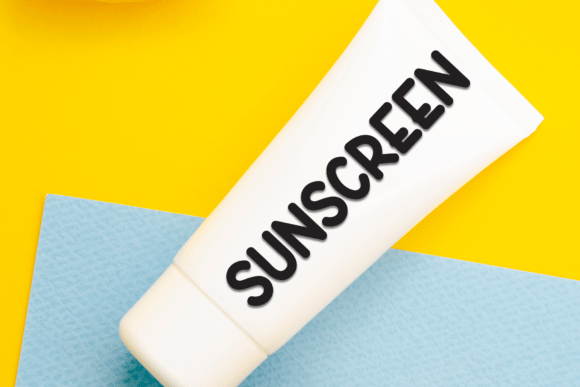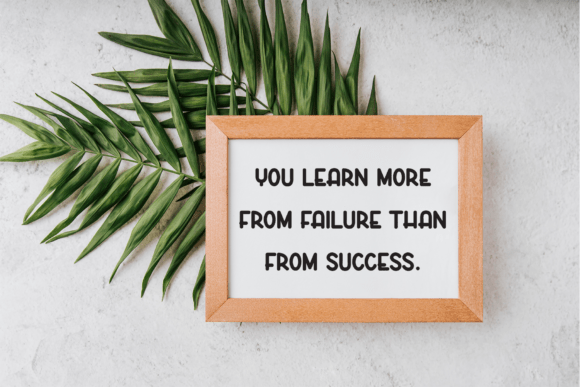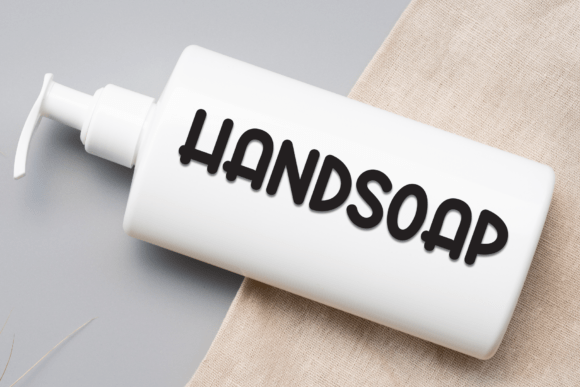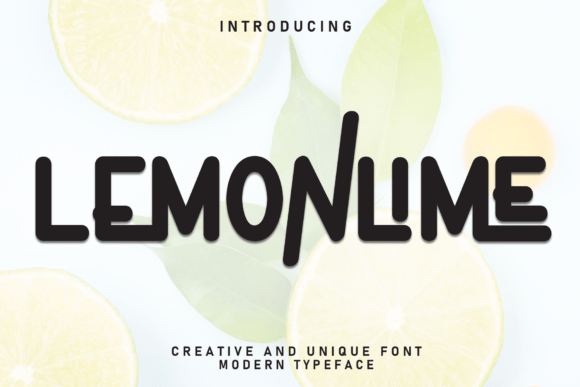
Lemonlime is a neat and casual display font that radiates fun and relaxation.
With clean lines and an easygoing vibe, it’s perfect for summer posters, event flyers, and playful branding This cheerful typeface brings a breezy, laid-back feel to any creative project or message.